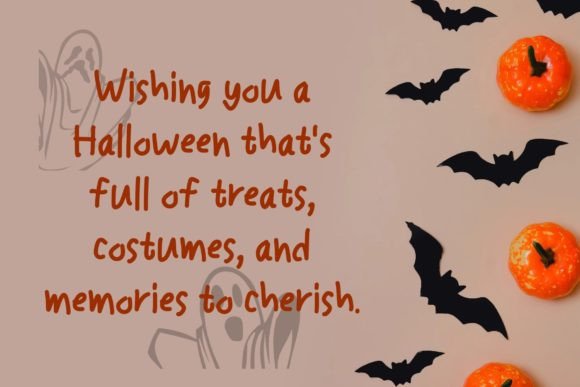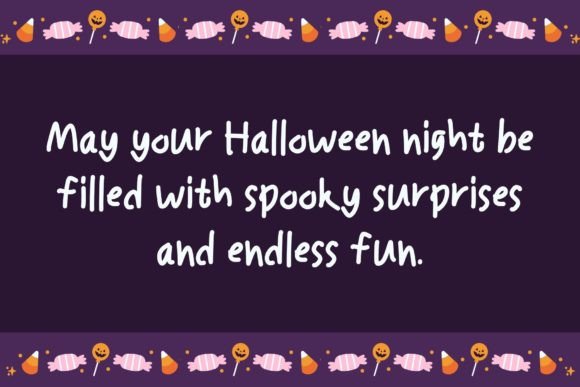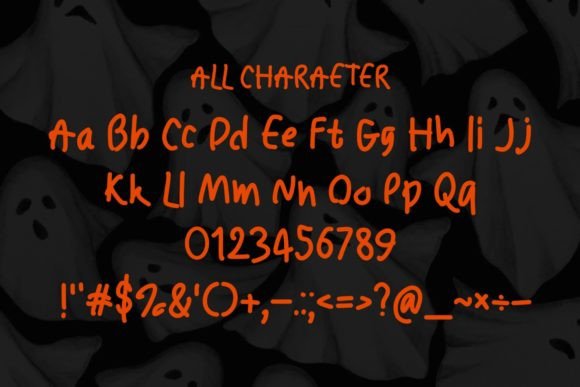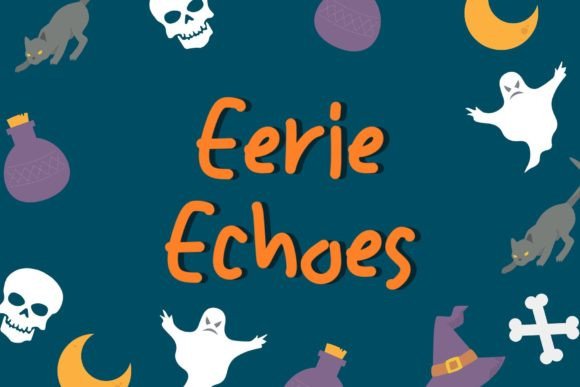
Unleash the Haunting Beauty of Eerie Echoes Font
Are you ready to add a touch of darkness and mystery to your designs? Look no further than the Eerie Echoes font, a hauntingly beautiful typeface that will send shivers down your spine. With its twisted and ethereal letterforms, this font captures the essence of intrigue and enigma, perfect for designers and crafters who want to create a lasting impression on their audience.
The Perfect Font for Spooky Designs
Whether you’re creating spooky Halloween invitations, designing eerie posters, or crafting chilling book covers, the Eerie Echoes font is the perfect choice. Its unique and otherworldly aesthetic is sure to captivate and engage, bringing an air of enchantment to your projects. The font’s twisted and curved letterforms seem to dance on the page, evoking a sense of mystery and foreboding.
Key Features of Eerie Echoes Font
- Hauntingly beautiful design: The Eerie Echoes font features twisted and ethereal letterforms that will add a touch of darkness to your designs.
- Perfect for spooky designs: Whether you’re creating Halloween invitations, eerie posters, or chilling book covers, this font is sure to leave a lasting impression on your audience.
- Unique and otherworldly aesthetic: The font’s unique design is sure to captivate and engage, bringing an air of enchantment to your projects.
What Makes Eerie Echoes Font So Special?
The Eerie Echoes font is more than just a typeface – it’s an experience. Its hauntingly beautiful design is sure to evoke a sense of mystery and intrigue, drawing your audience in and refusing to let go. Whether you’re creating a spooky Halloween invitation or a chilling book cover, this font is sure to add an extra layer of depth and atmosphere to your design.
Inspiration for Your Eerie Echoes Font Projects
Need some inspiration for your Eerie Echoes font projects? Here are a few ideas to get you started:
- Spooky Halloween invitations: Create hauntingly beautiful invitations for your Halloween party or event.
- Eerie posters: Design posters that will leave a lasting impression on your audience.
- Chilling book covers: Create book covers that will draw readers in and refuse to let go.
- Creepy crafts: Use the Eerie Echoes font to create creepy crafts, such as spooky signs and decorations.
Tips and Tricks for Getting the Most Out of Eerie Echoes Font
Here are a few tips and tricks for getting the most out of the Eerie Echoes font:
- Experiment with different colors: Try pairing the font with different colors to create a unique and eye-catching design.
- Play with font sizes: Experiment with different font sizes to create a sense of hierarchy and depth in your design.
- Add textures and effects: Add textures and effects to your design to give it an extra layer of depth and atmosphere.
The Eerie Echoes font is a hauntingly beautiful typeface that is sure to add a touch of darkness and mystery to your designs. With its twisted and ethereal letterforms, this font captures the essence of intrigue and enigma, perfect for designers and crafters who want to create a lasting impression on their audience. Whether you’re creating spooky Halloween invitations, designing eerie posters, or crafting chilling book covers, the Eerie Echoes font is the perfect choice.